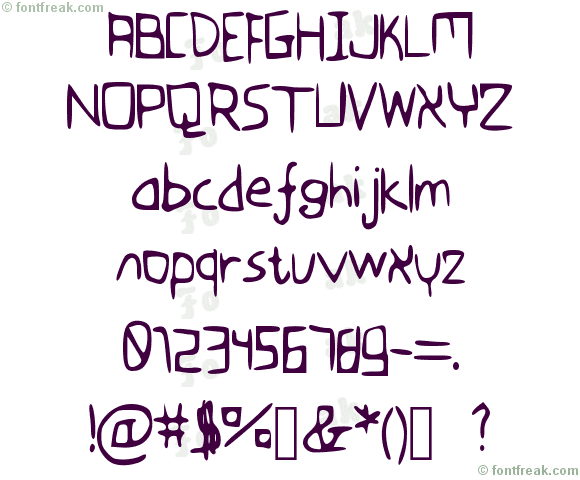
Flovio
About Flovio
Flovio, crafted by Luedecke Design Font Co., is a captivating display font that perfectly balances whimsy and sophistication. This unique typeface falls under the category of decorative fonts, showcasing a playful yet elegant style. The visual characteristics of Flovio are particularly striking, featuring a fluid stroke weight that adds a sense of movement and charm to each character. The contrast in the strokes is subtle but effective, enhancing readability while maintaining an artistic flair. The letters are well-spaced, allowing for an airy feel, which makes it suitable for various applications.
Flovio shines in specific use cases, making it an excellent choice for creative projects. It is ideal for wedding invitations, where its distinctive style can convey elegance and romance. Additionally, the font works beautifully on restaurant menus, adding a touch of sophistication that enhances the dining experience. Graphic designers will appreciate its ability to elevate movie posters, giving them a fresh and modern look. Furthermore, small business owners can utilize Flovio for branding materials, such as logos or promotional flyers, to create a memorable impression.
The target audience for Flovio includes graphic designers, small business owners, and content creators looking for a unique typeface that can enhance their visual storytelling. The font's free availability as a freeware license encourages creativity without the burden of licensing fees.
What truly sets Flovio apart is its ability to blend artistry with functionality. It stands out in a crowded marketplace of fonts, offering a distinctive style that can adapt to various themes while retaining its unique character. For those seeking a versatile and visually appealing typeface, the Flovio font free download is a fantastic option to explore.